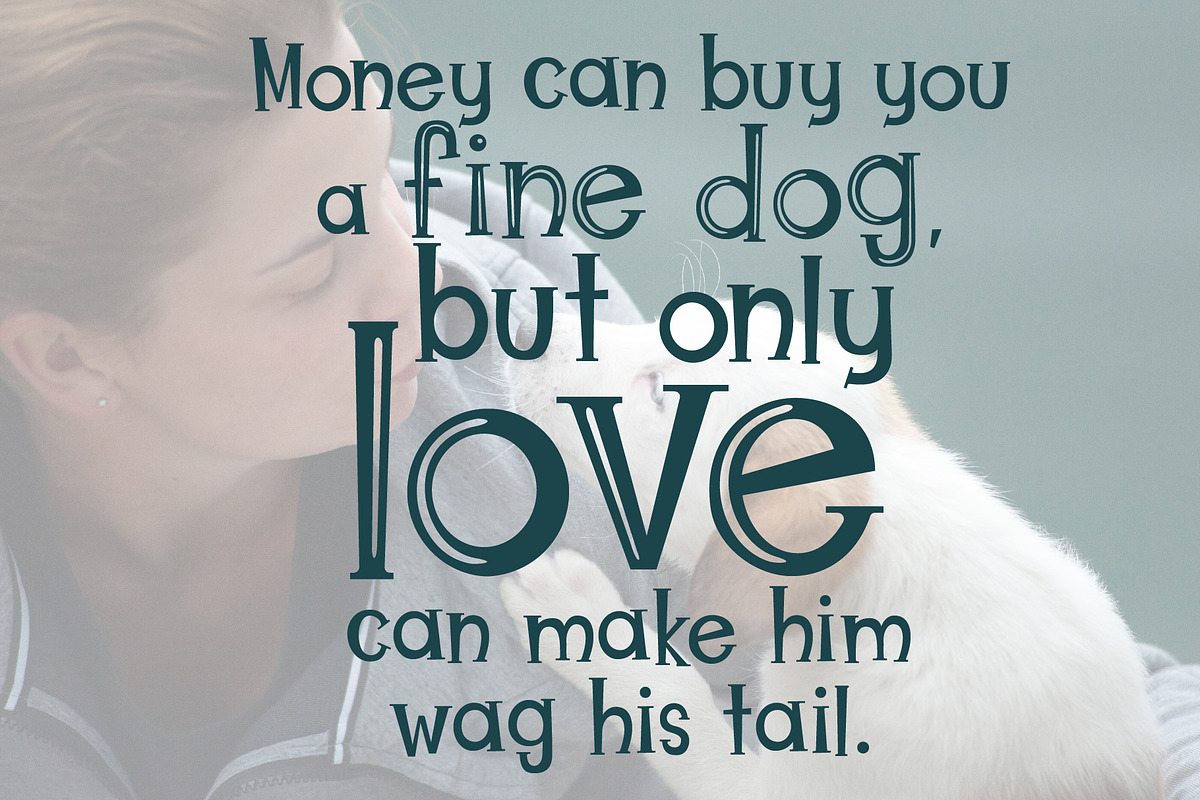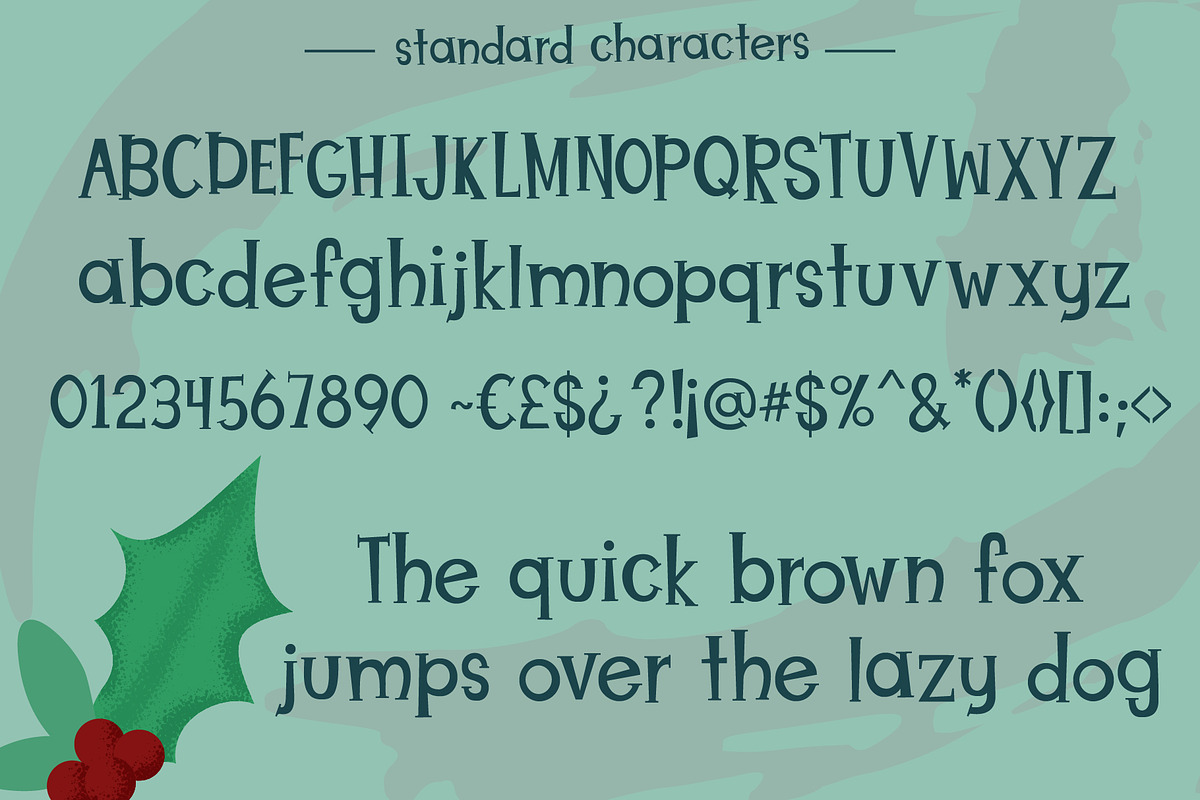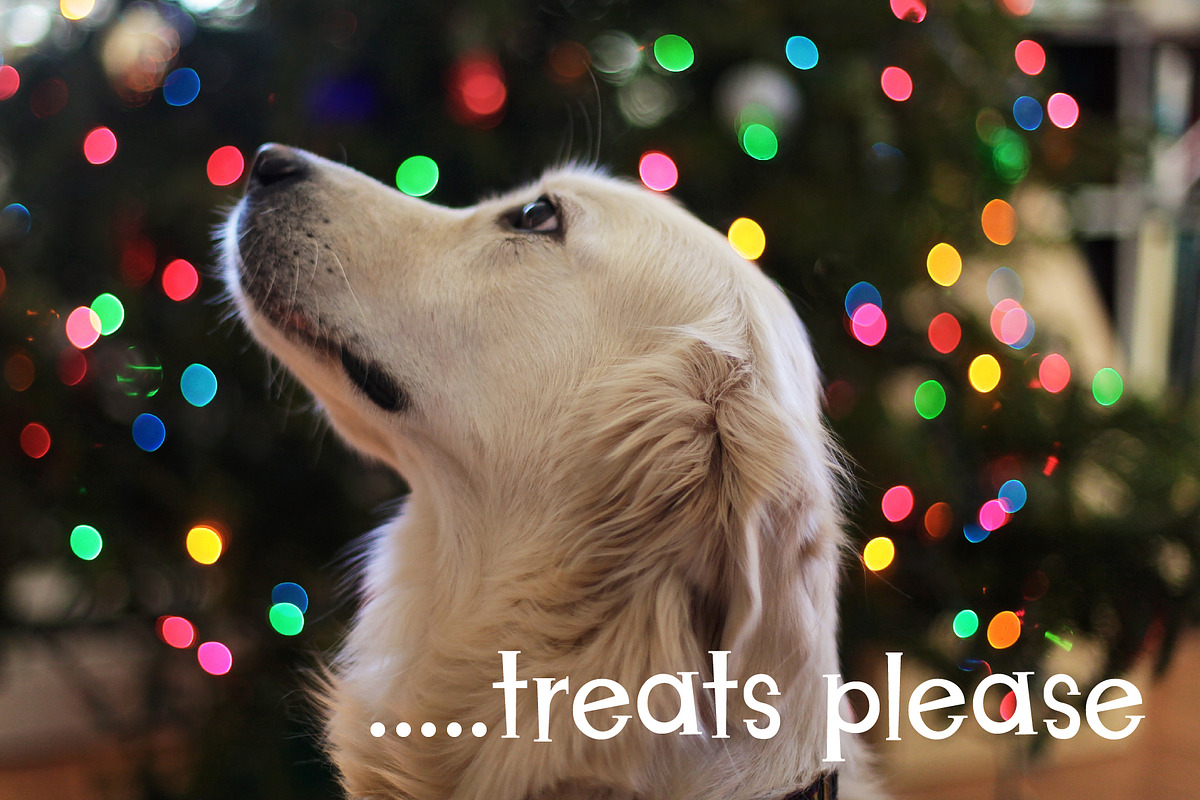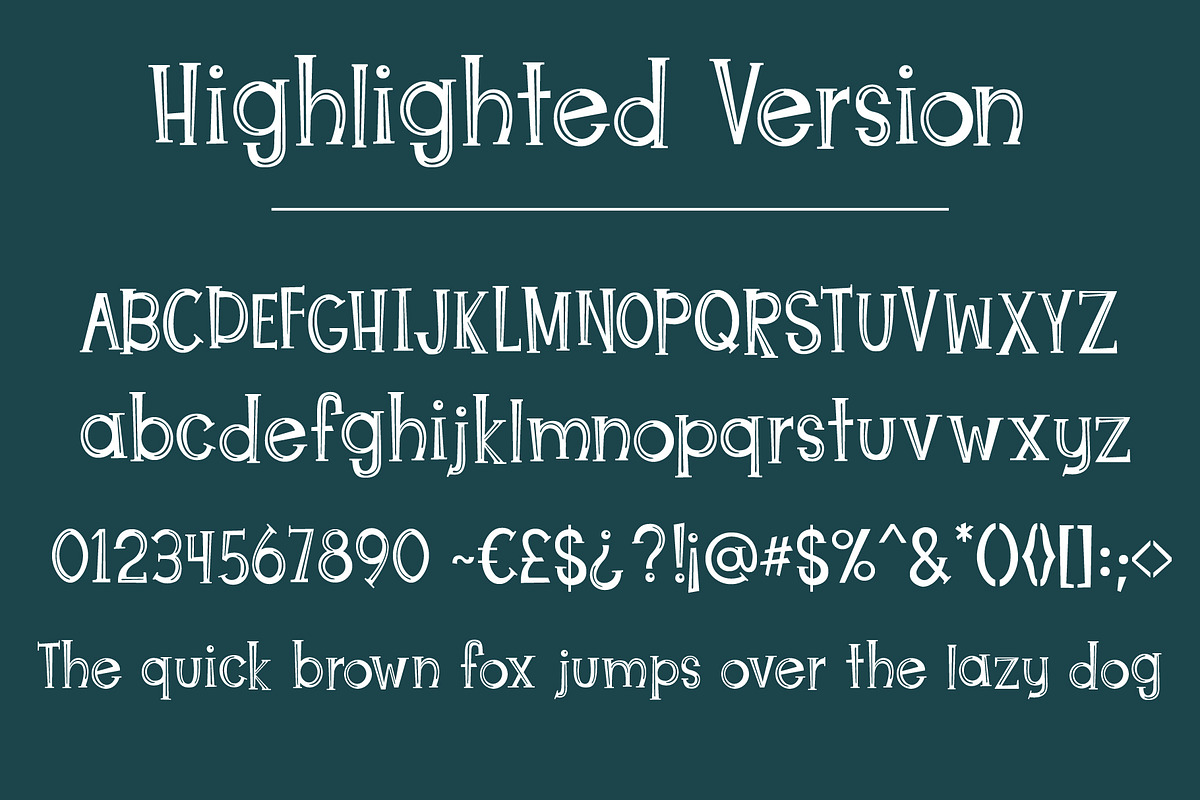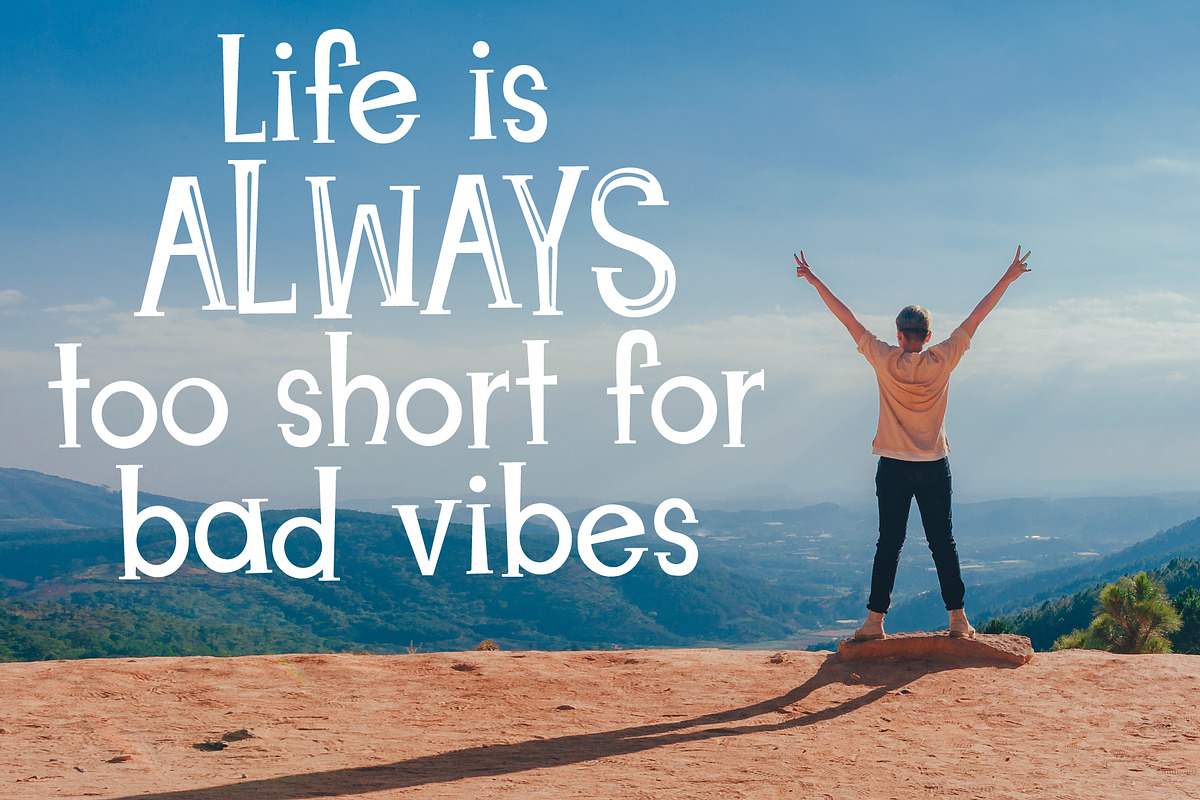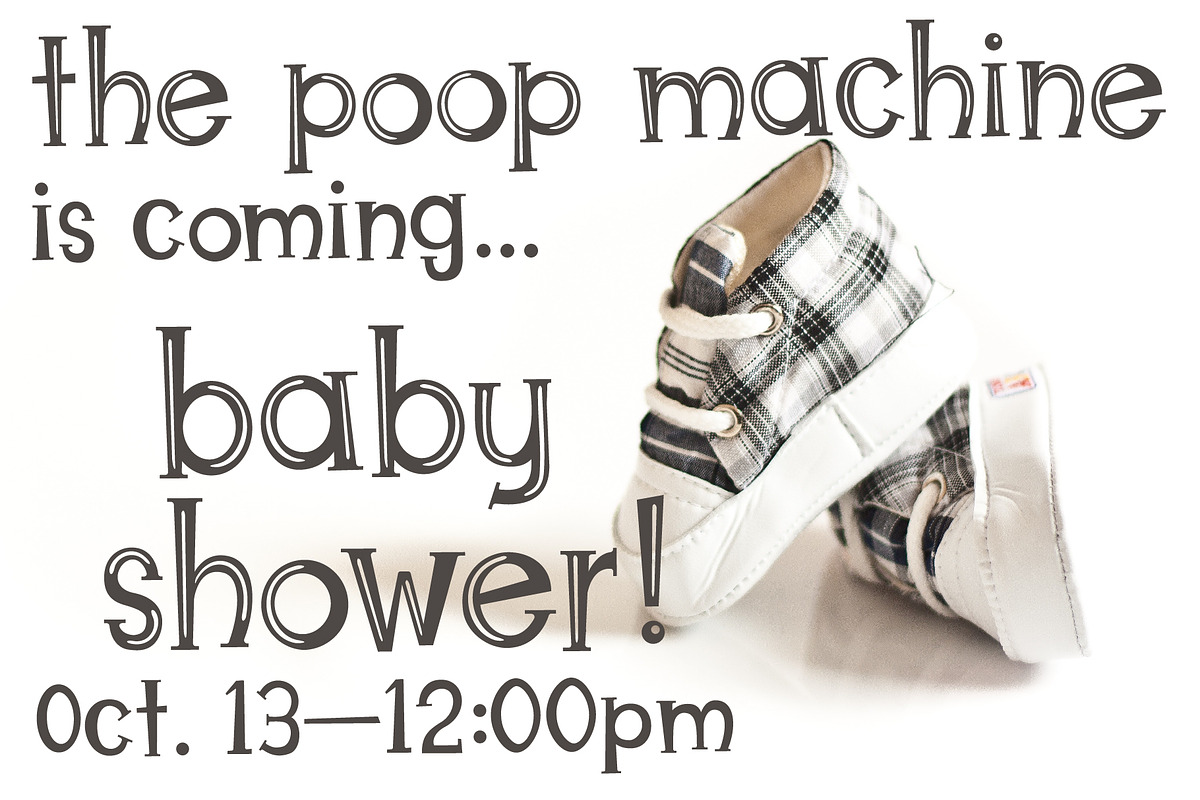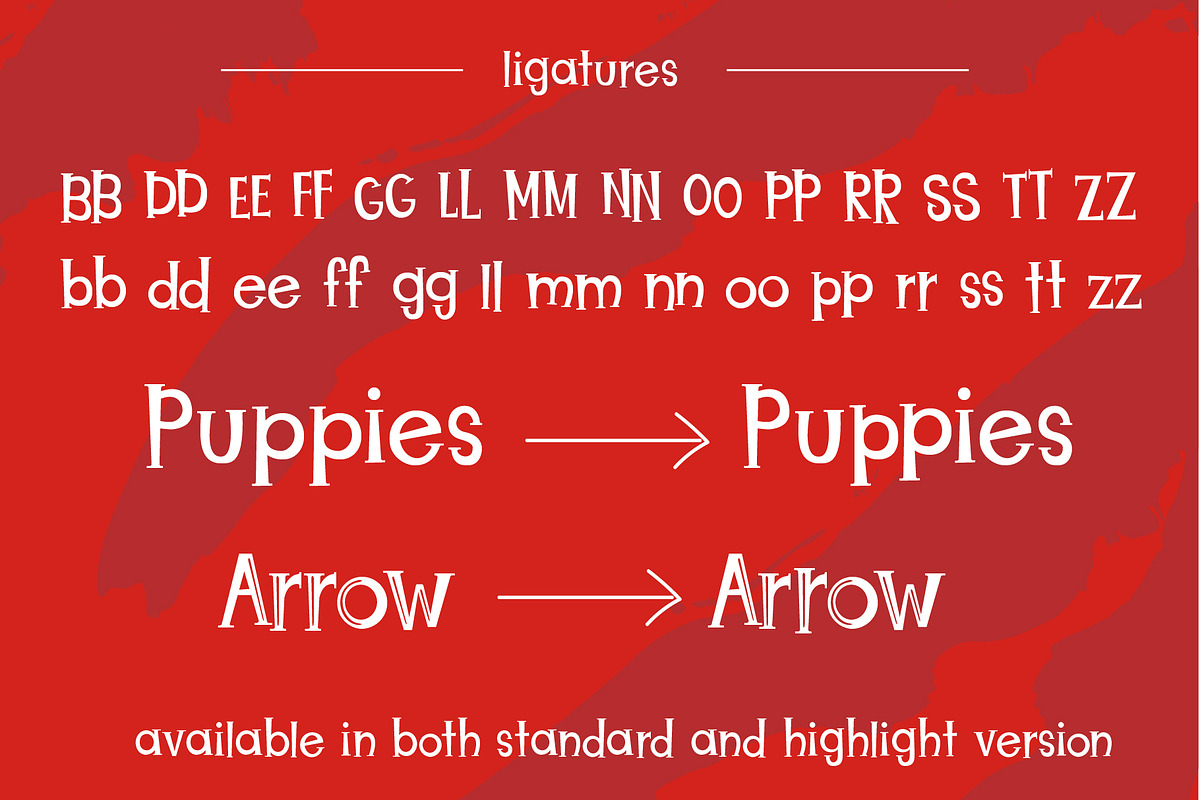
Christmas Puppies Font Pair
Introducing, Christmas Puppies. I wanted something that was clean and useful, but fun and festive. So I took the inspiration of a Christmas Holly and the roundness of a fun puppy attitude and put them together for this font family pair. Enjoy!. This PUA font is perfect for professional designer, social media, or crafters.
- Christmas Puppies Regular
- Christmas Puppies Highlight